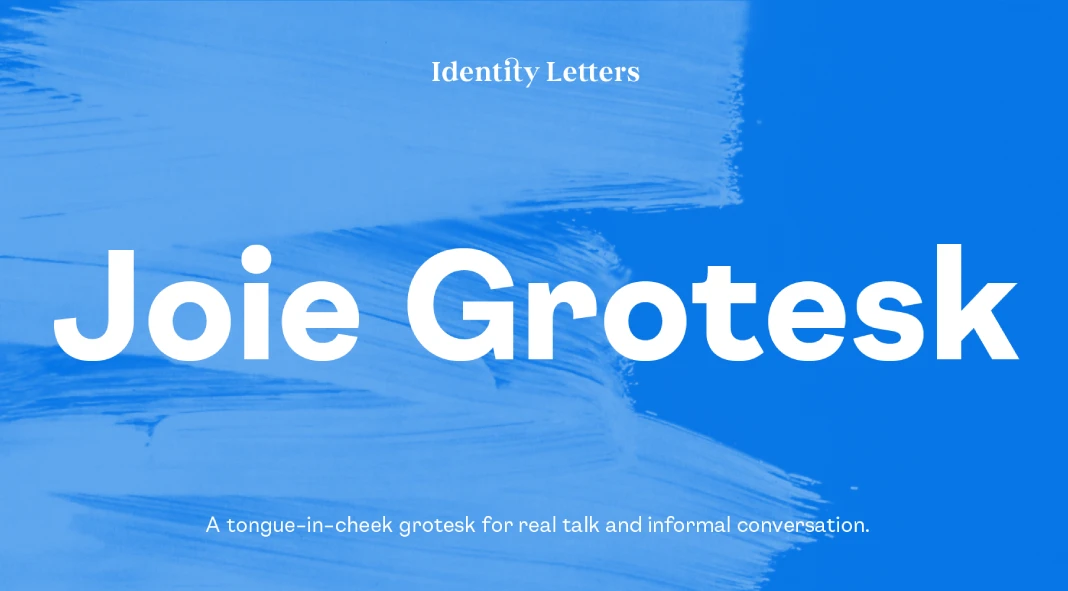
Joie Grotesk: The Optimistic Sans-Serif Typeface
Are you looking for a typeface that’s both professional and approachable? A font family that speaks volumes without shouting? Well, say hello to Joie Grotesk, the captivating sans-serif typeface designed by Moritz Kleinsorge of Identity Letters. This font is quickly becoming a favorite among designers, and for good reason. It’s versatile, engaging, and brimming with personality. What makes Joie Grotesk so special, and why is it poised to become a design staple? Let’s explore.
A Sans-Serif with Soul: What Makes Joie Grotesk Unique?
What truly distinguishes Joie Grotesk from the countless other sans-serif fonts out there? The answer lies in its thoughtful design and subtle details. It takes inspiration from early 19th-century grotesque fonts, blending historical roots with a modern sensibility. The result? A typeface that feels both familiar and fresh.
The key here is balance. Kleinsorge has created a clean, balanced rhythm. However, this balance is offset by little quirks. These quirks are what make the font feel so approachable. These are the elements that make it truly special. Are you looking for a typeface that has personality? If yes, then Joie Grotesk might be the right choice for you.
Stylistic Sets: Unleash Your Creative Freedom with Joie Grotesk
One of the most exciting features of Joie Grotesk is its array of stylistic sets. These sets allow you to customize the font’s appearance, injecting even more personality into your designs. Imagine adding expressive ears to the letter “r” or a distinctive hook to the letter “f.” You have the freedom to tailor the font to your specific needs and preferences.
With over a dozen stylistic sets at your disposal, the possibilities are endless. You can simplify letterforms for a cleaner, more minimalist look, or you can add calligraphic terminals for a touch of informality. These options make it a very versatile font.
Versatility in Weights: From Thin to Black
Joie Grotesk offers a wide range of nine weights, from delicate Thin to bold Black, with matching italics for each. This extensive range gives you the flexibility to use the font in various design contexts, from body text to headlines.
The bolder weights of Joie Grotesk highlight its connection to old-style Grotesque typefaces. These weights are perfect for display sizes and short bursts of text where their unique characteristics can truly shine. The regular and lighter weights, on the other hand, are optimized for extended reading, ensuring a comfortable and engaging experience for your audience.
Beyond the Basics: OpenType Features and Glyph Count
Joie Grotesk is not just a pretty face; it’s a workhorse. Boasting over 750 glyphs and a plethora of OpenType features, it’s a reliable companion for any design project. This is more than just a font; it’s a complete typographic toolkit.
The font includes various circled and boxed variants for numbers and arrows. These are super handy for creating complex layouts and presentations. The comprehensive character set ensures that you have all the tools you need to communicate effectively and creatively.
Where to Use Joie Grotesk: A Font for Every Occasion
So, where does Joie Grotesk truly excel? The answer is simple: everywhere. It’s the perfect choice for branding, websites, print materials, and more. Its friendly and approachable nature makes it ideal for companies and campaigns that want to connect with their audience on a personal level.
Think about using it for:
- Company Logos: Its modern twist on a classic sans-serif gives a timeless, yet contemporary feel.
- Website Headlines: Bold weights grab attention, while lighter weights offer excellent readability for body text.
- Marketing Materials: The various stylistic sets allow for creative expression and brand differentiation.
- Packaging Design: Its versatility makes it suitable for a wide range of product types.
Ultimately, Joie Grotesk shines whenever you want a classic sans-serif typeface with a modern and individual twist.
Why Joie Grotesk Might Go Viral
Why the hype? Joie Grotesk is beautiful and practical. It’s the kind of font that designers love to share and discuss. Its versatility and unique features make it a natural fit for social media. Plus, its approachable nature makes it appealing to a broad audience, not just design professionals.
Expect to see Joie Grotesk popping up in design showcases, tutorials, and discussions across social media platforms. Its friendly personality and customizable options make it a font that people want to experiment with and share their creations.
The Legacy of Moritz Kleinsorge and Identity Letters
Moritz Kleinsorge, the designer behind Joie Grotesk, is known for his meticulous attention to detail and his ability to create typefaces that are both functional and beautiful. Identity Letters, the type foundry he founded, is committed to producing high-quality fonts that empower designers to communicate effectively and creatively.
Final Thoughts: Is Joie Grotesk Right for You?
If you’re searching for a sans-serif typeface that is both classic and contemporary, friendly and professional, then Joie Grotesk is definitely worth considering. Its versatility, stylistic sets, and comprehensive character set make it a powerful tool for any designer. Will this typeface be your next favorite? Give it a try. It may become a go-to choice for a wide range of design projects.